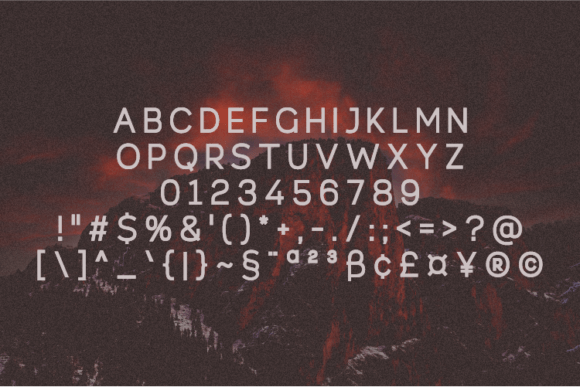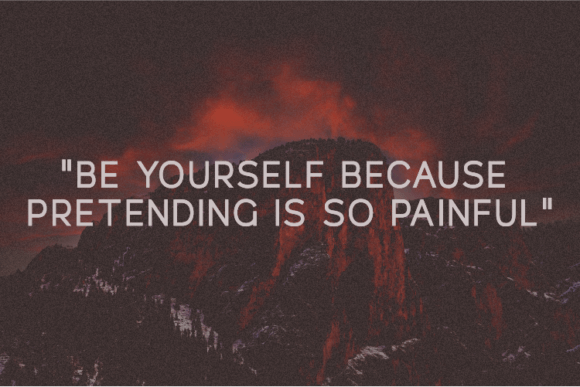
Introduction to Foldest Font
Foldest is a modern and elegant all-caps sans serif font.
With smooth and clean lines, just a touch of contrast, and a versatile style, this font works beautifully for logos, branding, web headings, and many more Add it to your favorite creative projects, and notice how it makes them come alive.
Key Features of Foldest Font
Why Choose Foldest Font?
Foldest Font offers exceptional quality and versatility, making it a valuable addition to your design toolkit. Whether you’re creating for personal projects or commercial use, Foldest Font delivers professional results.